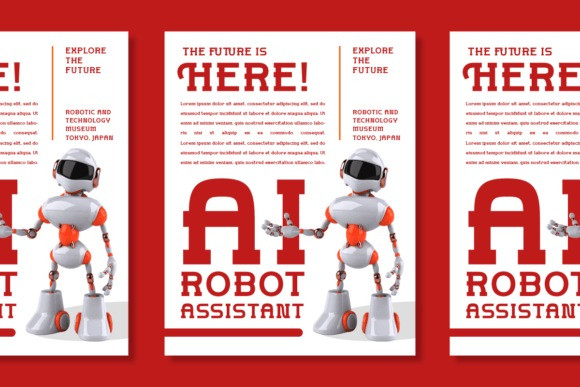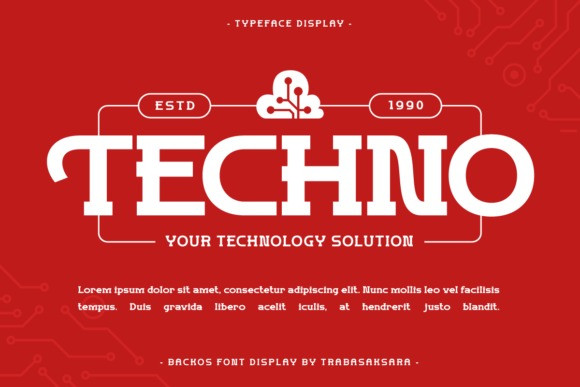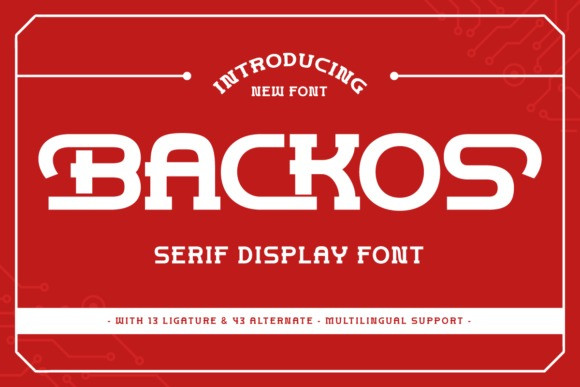
Backos Font
Backos Font , a bold and captivating typeface that will instantly grab the attention of your audience. With its strong and distinctive letterforms, Backos is the perfect choice for those seeking a powerful and impactful typography solution.